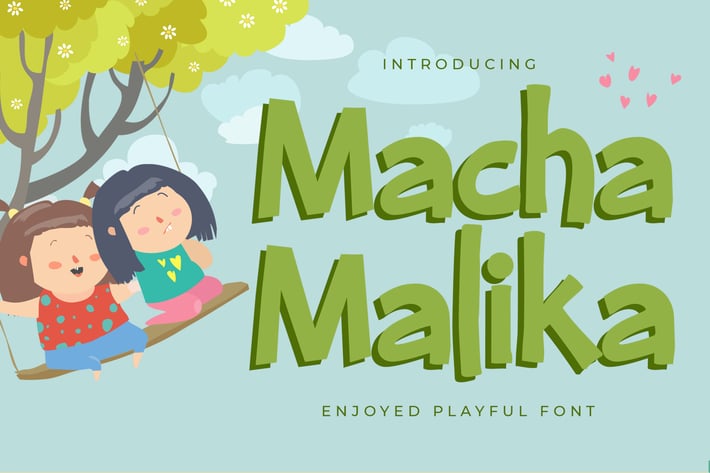
Macha Malika - Enjoyed Playful Display Font
Macha Malika is a - Enjoyed Playful Display Font that will make your designs look modern, unique and fun.
+ Ligatures